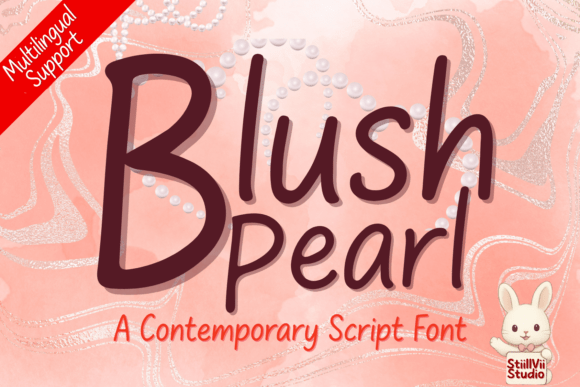
Unveil the Timeless Elegance of โ€œBlush Pearlโ€ ๐Ÿ’Ž
Have you ever been in the middle of a design project, and suddenly, you just can’t seem to find the right font? I recall working on a luxury branding project for a high-end jewelry client, and I was stuck. The font I needed had to be elegant, sophisticated, and convey a sense of trust. That’s when I discovered Blush Pearl, a contemporary script font that instantly elevated my design. In this article, I’ll share with you why Blush Pearl is a must-have in your font collection and how you can make the most of its stunning features.
What Makes Blush Pearl Special? โœจ
Blush Pearl is not your ordinary handwriting font. It’s crafted with clean lines and a polished structure, making it perfect for high-end branding. This font is inspired by the subtle glow of pearls and modern sophistication, giving it a timeless appeal that never goes out of style.
Why Blush Pearl is a Must-Have:
• โœจ Sophisticated & Clean: A minimalist style that looks expensive and professional.
• ๐Ÿ’„ Perfect for Branding: Ideal for fashion, beauty, perfume, and lifestyle businesses.
• ๐Ÿ’ Timeless Appeal: A classic look that never goes out of style.
• ๐Ÿ“– Versatile Legibility: Clear enough for product labels, social media ads, and digital planners.
Honest Review: The Good and the Not-So-Good ๐Ÿค”
• โœ… Elegant and Sophisticated: Blush Pearl adds a touch of luxury to any design.
• โœ… Easy to Read: Despite its elegant look, the font is clear and legible, even at small sizes.
• โœ… Versatile: Suitable for a wide range of design projects, from logos to wedding invitations.
• โš ๏ธ Limited Use in Body Text: While Blush Pearl is stunning for headings and titles, it might not be the best choice for long body text due to its script nature.
• โš ๏ธ Requires Attention to Kerning: As with many script fonts, you might need to adjust the kerning to ensure it looks perfect in your design.
Backstory: The Inspiration Behind Blush Pearl ๐Ÿ’Ž
The creator of Blush Pearl drew inspiration from the luminous beauty of pearls and the sophistication of modern design. The goal was to craft a font that embodies elegance and trust, perfect for luxury branding and high-end designs.
Q: Is Blush Pearl suitable for body text?
A: While Blush Pearl is stunning for headings and titles, it’s not ideal for long body text due to its script nature. For body text, consider a more readable font.
Q: Does Blush Pearl support OpenType features?
A: Yes, Blush Pearl supports OpenType features, including glyphs and stylistic alternates, allowing for more creative flexibility in your designs.
Blush Pearl is a versatile and elegant font that can elevate your designs to the next level. With its sophisticated look, clean lines, and timeless appeal, it’s perfect for luxury branding, high-end designs, and creative projects. Whether you’re a designer, crafter, or creative hobbyist, Blush Pearl is a must-have in your font collection.